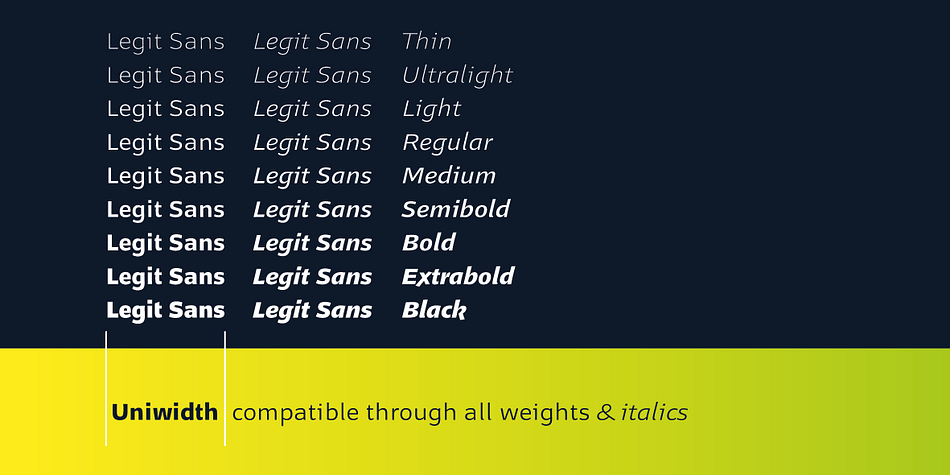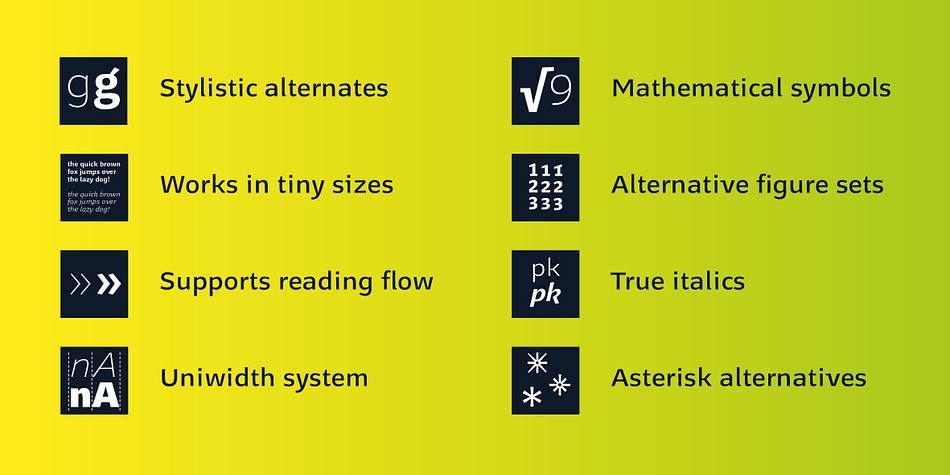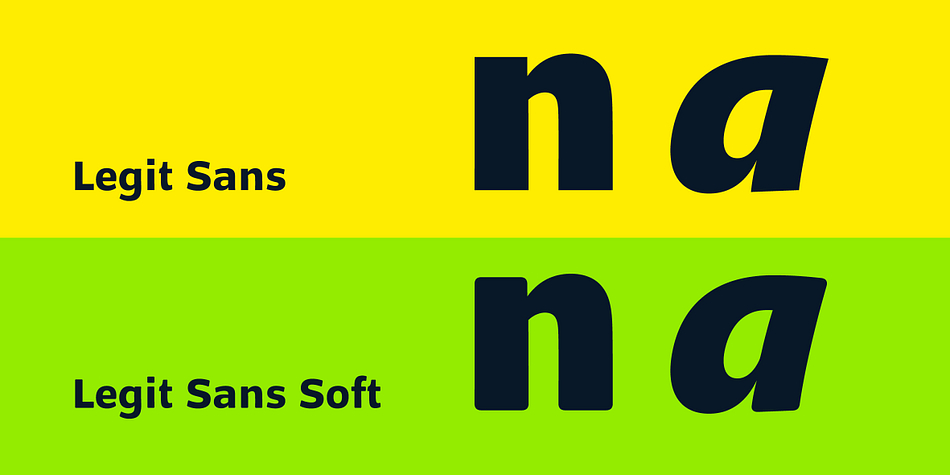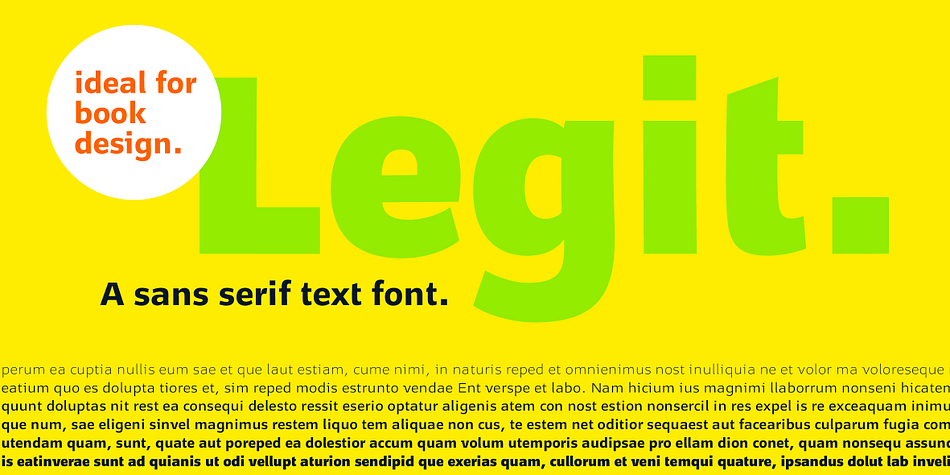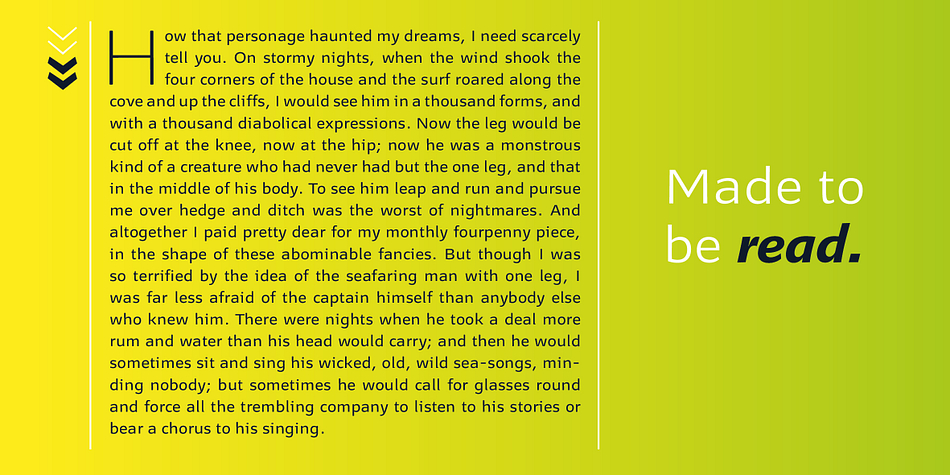
Legit Sans
Designed by Hans Heitmann, Legit Sans is a sans serif font family. This typeface has eighteen styles and was published by Finaltype.
Legit Sans is a sans serif text font that features both optimal readability in small sizes as well as elegant aesthetics in display use. The standout feature of this typeface is its uniwidth system: all 18 styles are 100% compatible in width and remain swappable without altering the layout.
Our Finaltype spacing provides optimal type color and readability, even in all-caps typesetting. The typeface comes with a set of ligatures and stylistic alternates as well as strong and clear accents to support more than 36 languages.